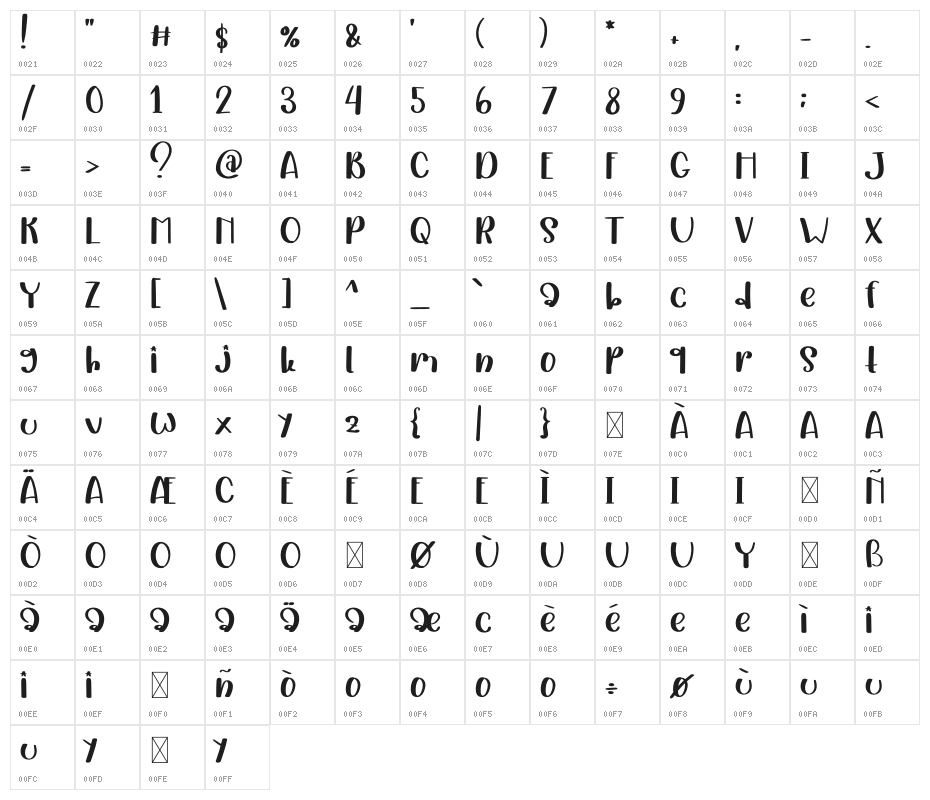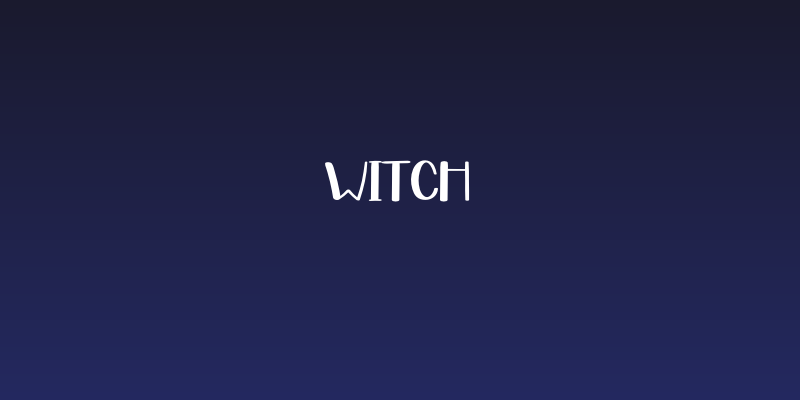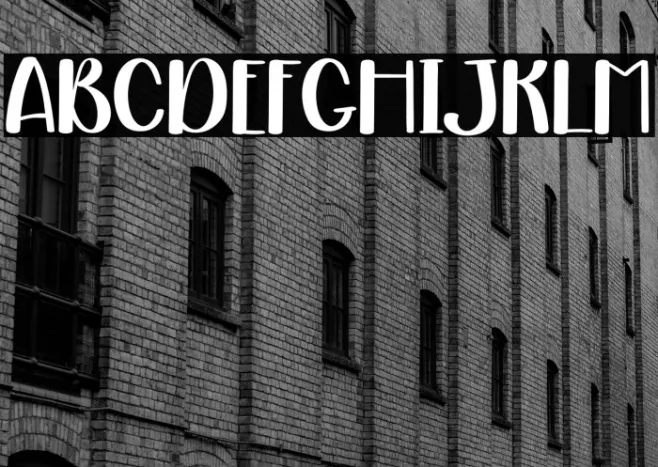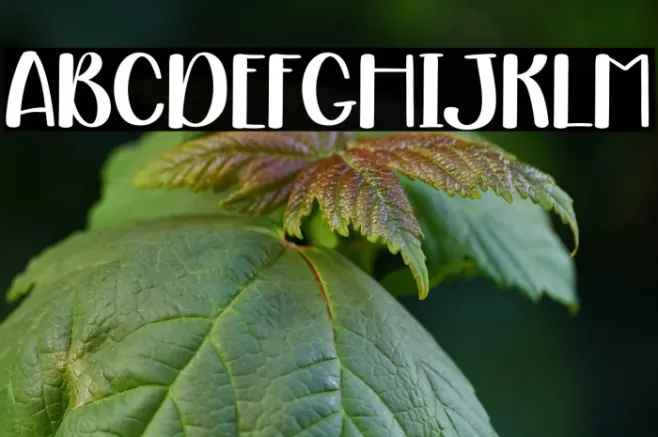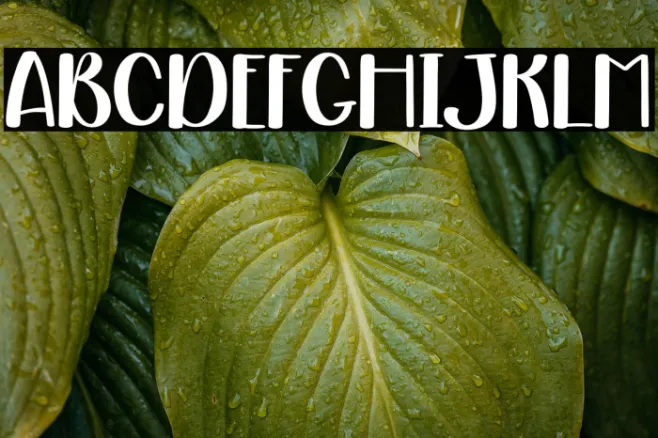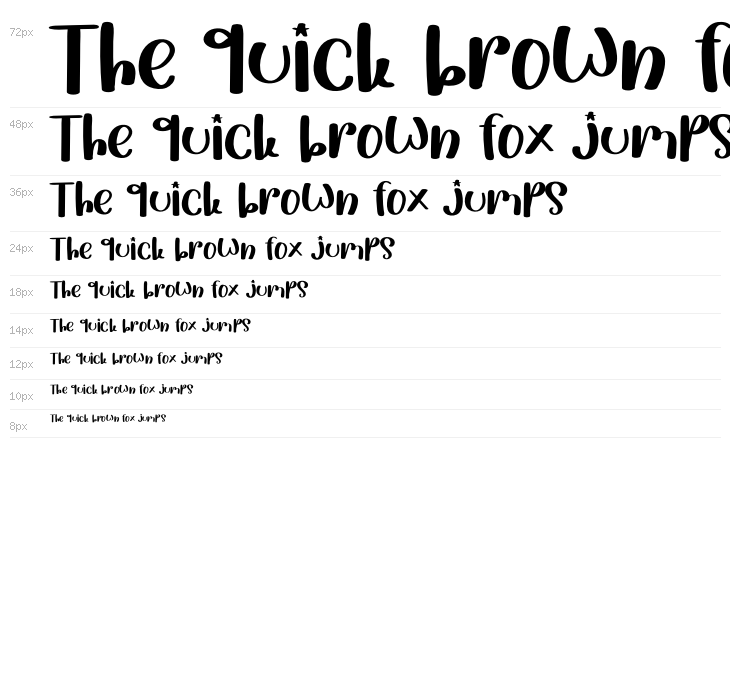
Witch Font
Witch Description
This font features a playful and whimsical design, characterized by its bold and rounded letterforms. The uppercase letters are uniform in height, with a slight slant that adds a dynamic feel. The lowercase letters exhibit unique flourishes, such as loops and curls, giving them a hand-drawn appearance. The numbers are consistent with the overall style, maintaining the bold and rounded aesthetic. Special characters are creatively integrated, with some featuring decorative elements like stars. This font's design is both eye-catching and approachable, making it suitable for a variety of creative projects.